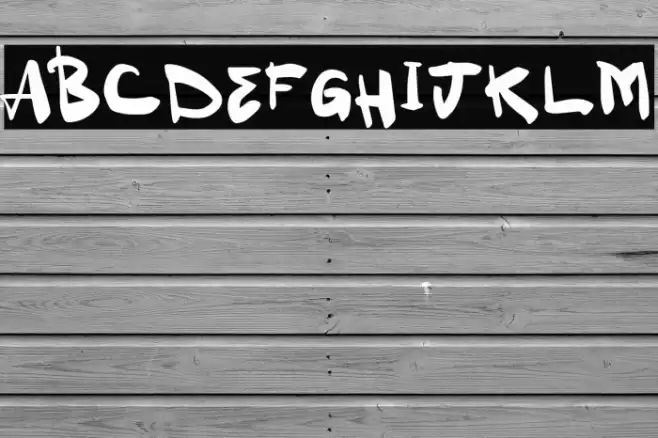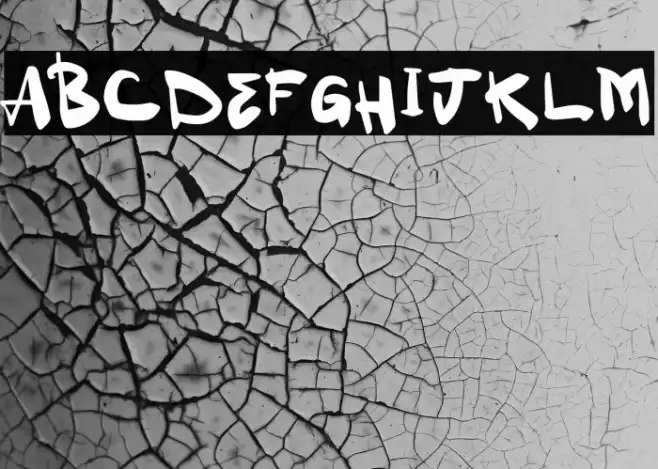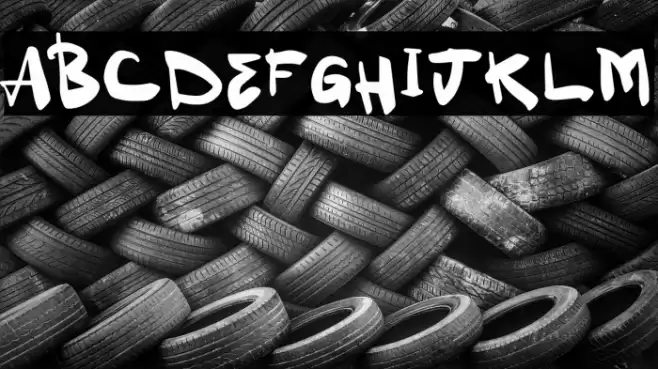
Vtks Textones Font
Vtks Textones Description
This font features a bold and expressive style with a hand-drawn appearance. The characters are irregular and dynamic, giving a sense of movement and energy. The uppercase and lowercase letters maintain a consistent style, with exaggerated curves and angles that create a playful and artistic look. The font's unique design makes it stand out, with each letter having its own personality while still maintaining overall cohesion. The strokes are thick and varied, adding to the font's dramatic and impactful presence.
A bold, hand-drawn font with dynamic and expressive characters from Uncategorized fonts.
- Proposed Projects: Ideal for creative projects such as posters, album covers, and branding materials that require a bold and artistic touch.